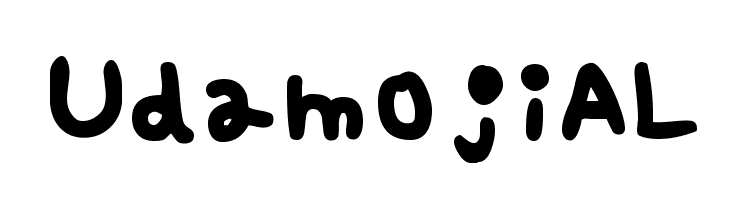
A diverse collection of bold, graphic symbols with cultural and geometric designs.
( Fonts by www.fontalicious.com )
A bold, modern font with rounded, cohesive characters.
( Fonts by Mr Fisk - Mike Larsson - fontorama.net )
A distressed, melting-style font with jagged outlines and intense visual impact.
( Fonts by www.aenigmafonts.com )
A playful, bold font with a cartoon-like, bubbly style.
( Fonts by Graham Meade - GemFonts )
A dynamic italic font with a modern, energetic style and unique character design.
( Fonts by Graham Meade - GemFonts )
A bold, condensed sans-serif font with a modern and clean design.
( Fonts by www.freakyfonts.de )
A bold, geometric font with a futuristic and assertive style.
( Fonts by The Scriptorium - Dave Nalle )
A bold, decorative font with intricate, swirling patterns and a vintage psychedelic vibe.
( Fonts by www.alphabetype.it )
A bold, geometric font with a futuristic and robotic design.
A bold, futuristic font with geometric and modern design elements.